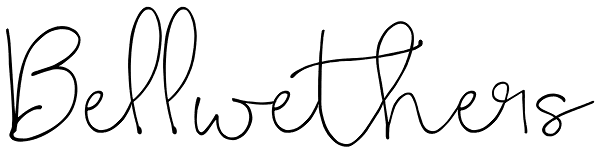
Bellwethers
Meet Bellwethers... a fancy, doodley, hand-drawn typeface with swashes galore. Perfect to add a little whimsy and carefree elegance to your next project. This font contains 6 separate fonts that include a full-on smorgasbord of swash letterforms...
Bellwethers Curly Swash
Bellwethers Longest Swash
Bellwethers Long Swash
Bellwethers Short Swashes
Bellwethers Special Extras